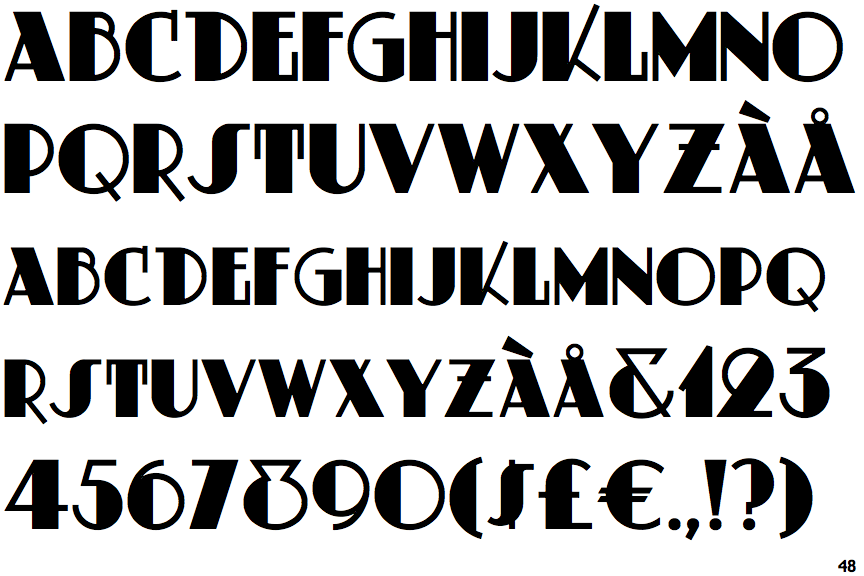
Dusty Rose NF
Based on the logo for a Dutch magazine for housepainters.
Designer: Nick Curtis Year: 2000 Publisher: Nick's Fonts No lower-case characters. |